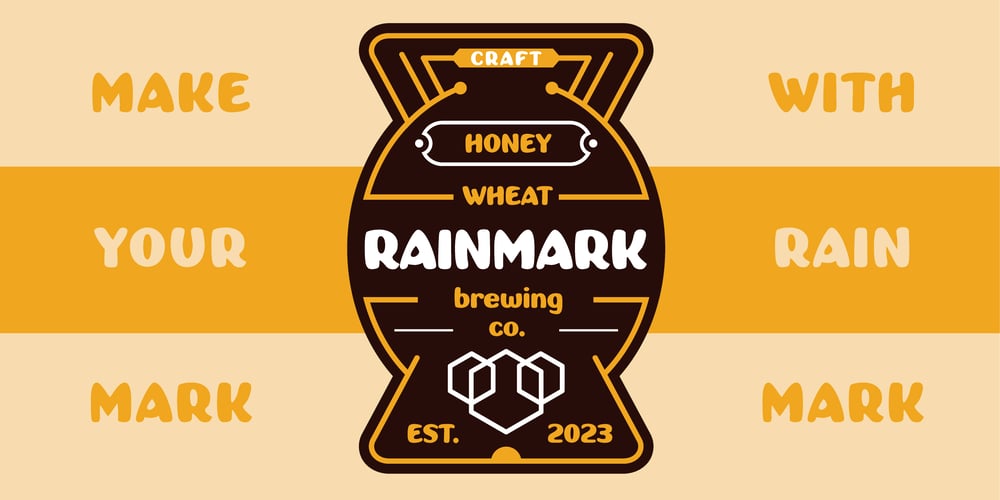
Rainmark Font Family was designed by Alec Julien and published by Haiku Monkey. Rainmark contains 2 styles and family package options. Rainmark is a joyful display font that can help make your designs stand out from the crowd. Use the regular version on its own, or layer it on top of the shadow style for extra oomph! Rainmark works beautifully on posters, labels, T-shirts,… anything where a bold, fun font is what you need.